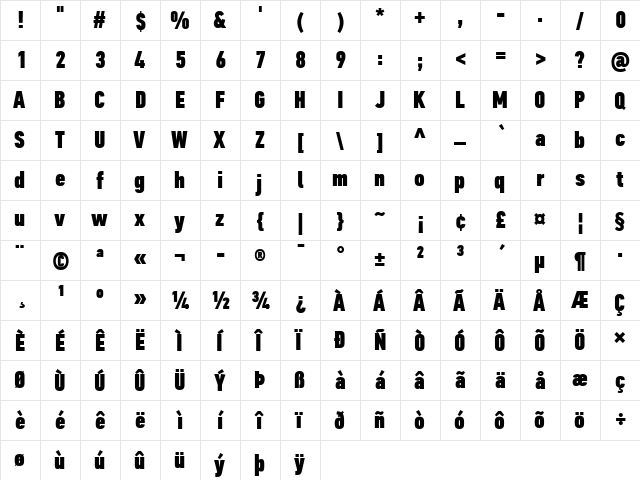
PF Din Text Comp Pro Extra Black
| Foundry | Parachute蠗orldwide |
| Designer | Panos Vassiliou |
Design Context for PF Din Text Comp Pro Typeface
PF Din Text Comp Pro takes a measured approach to typography — its balanced proportions and neutral character make it a reliable workhorse for both digital and print work.